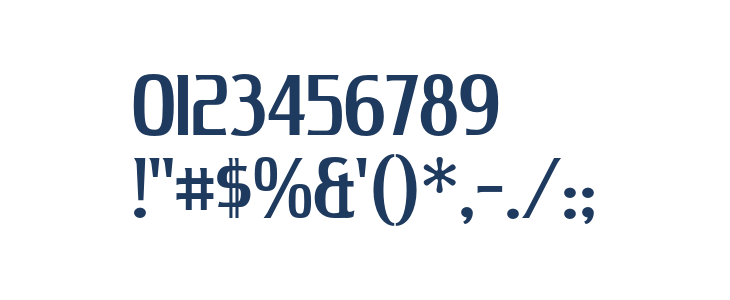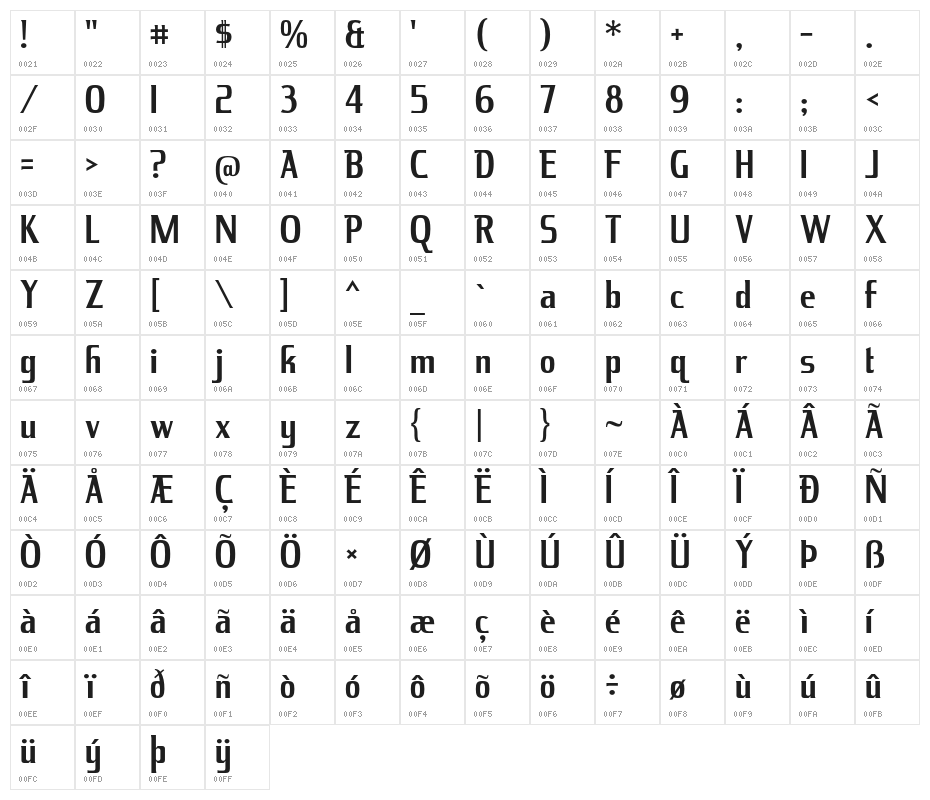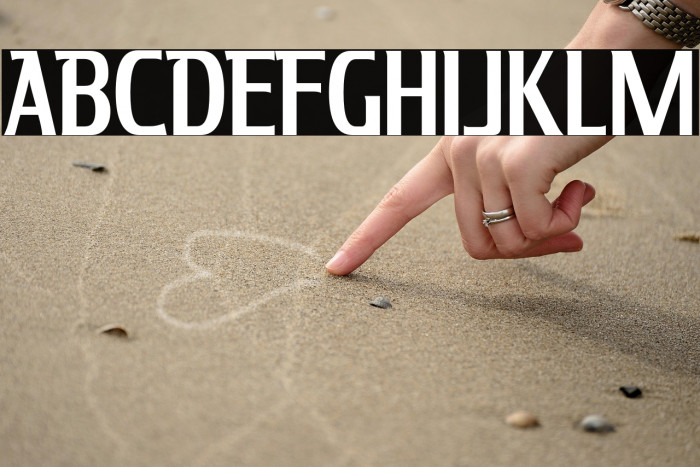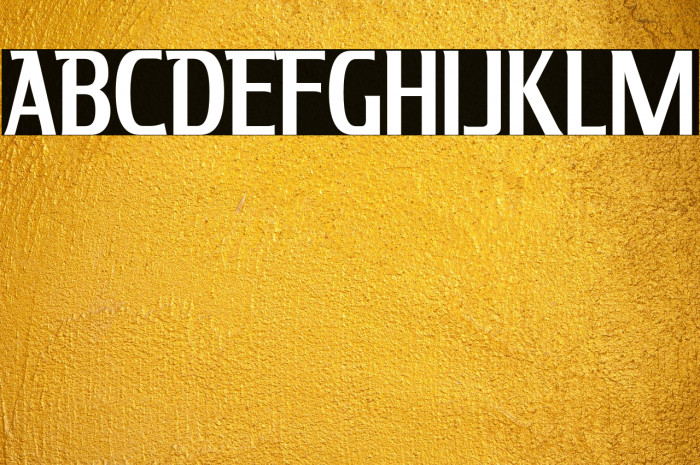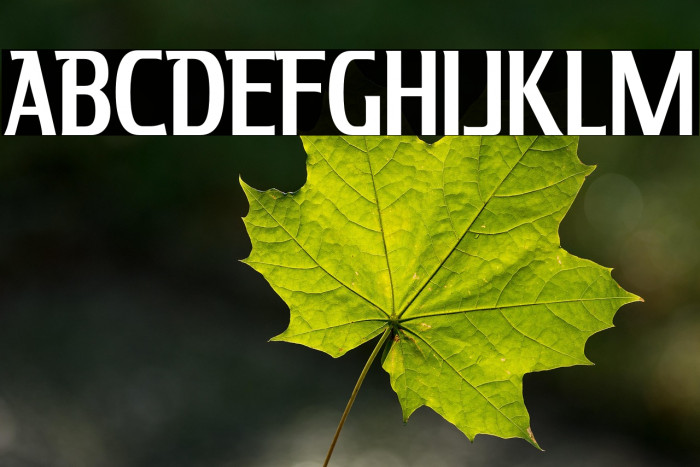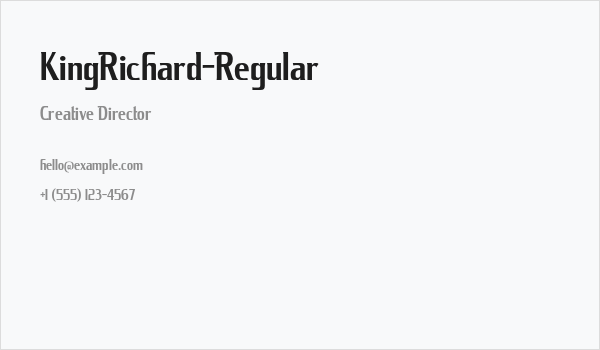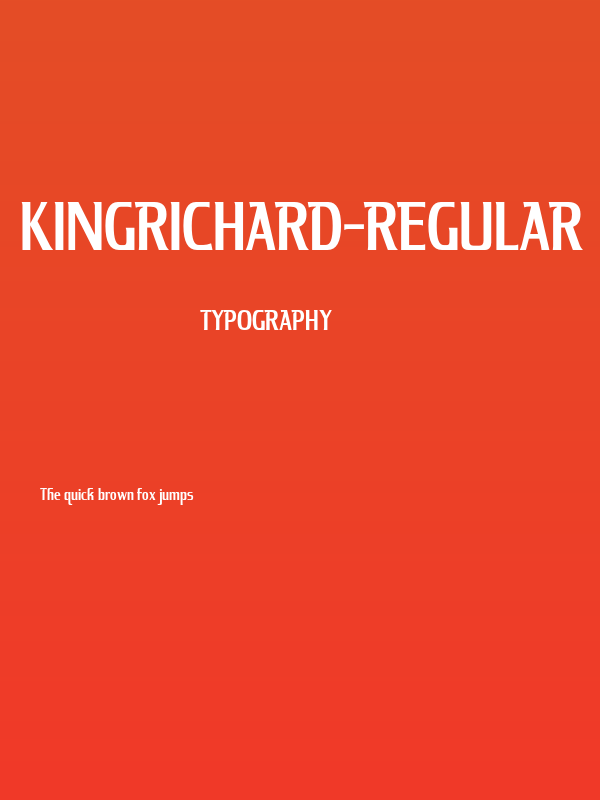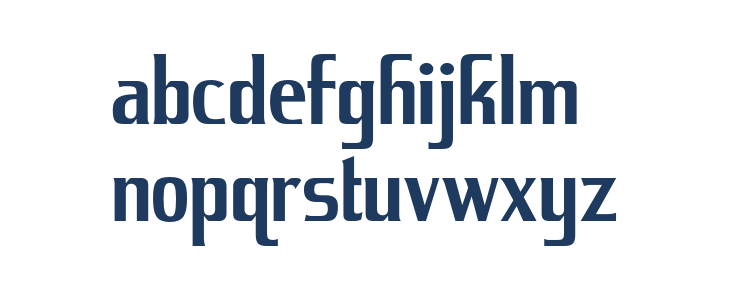
KingRichard-Regular Font
KingRichard-Regular Description
This font features a bold and striking design with a modern flair. The uppercase letters are tall and slightly condensed, giving a sense of strength and authority. The lowercase letters maintain a consistent style, with unique characteristics such as the curved tail on the 'g' and the distinctive shape of the 't'. Numbers are clear and easy to read, with a uniform height that matches the uppercase letters. Special characters are well-integrated, maintaining the overall aesthetic of the font. The strokes are consistent in thickness, providing a balanced and cohesive look.